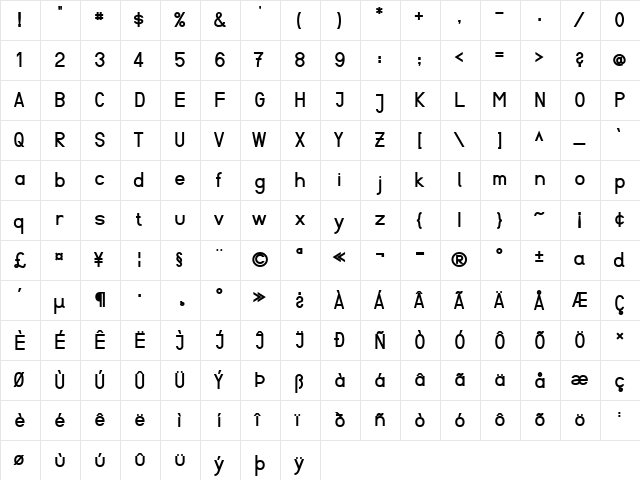
Fibel Sued Bold
| Foundry | Peter Wiegel |
| Designer | Peter Wiegel |
Design Context for Fibel Sued Typeface
Fibel Sued takes a measured approach to typography — its balanced proportions and neutral character make it a reliable workhorse for both digital and print work. Its bold stroke weight gives it real presence on the page.